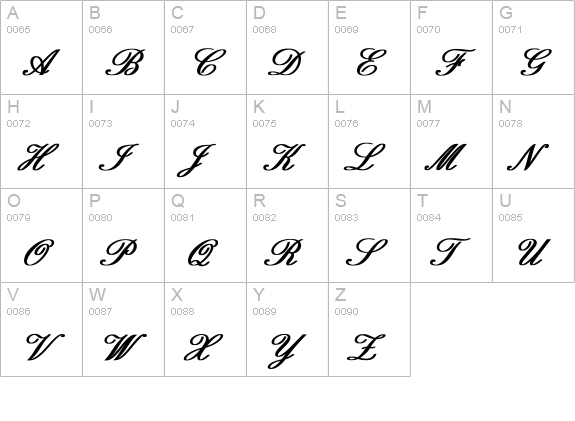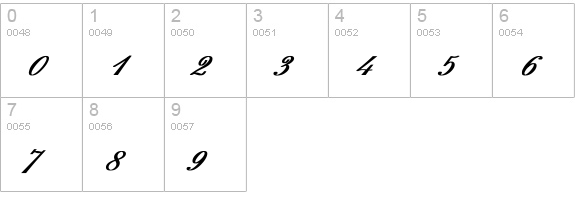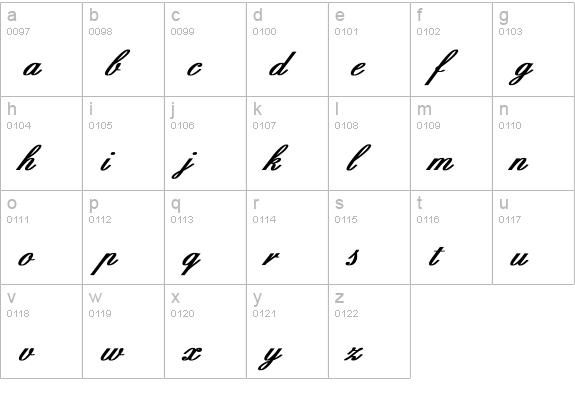
English Bold is a strong, high-contrast variant in the English typeface family \xE2\x80\x94 well suited to headlines, attention-grabbing titles, and strong calls-to-action.
The English Bold font is a striking and attention-grabbing typeface that exudes confidence and authority. Its bold strokes and clean lines make it perfect for making a statement in any design project. Whether you're creating a poster, flyer, or logo, the English Bold font will help your message stand out with its bold and impactful presence. Best of all, the English Bold font is available for free download at FontsMarket.com. This means you can easily access this powerful font without any cost, making it a valuable addition to your font collection. Don't miss out on the opportunity to enhance your designs with the English Bold font today!